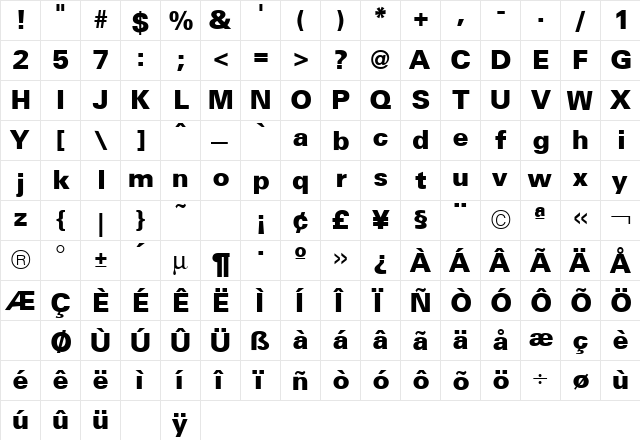
Uniform Black Regular
Design Context for Uniform Black Typeface
Uniform Black offers clean, dependable letterforms without strong stylistic allegiance, making it a practical choice for designers who need flexibility.
Pro Tip: Pair Uniform Black with a font of contrasting weight or personality to build a more expressive typographic hierarchy.